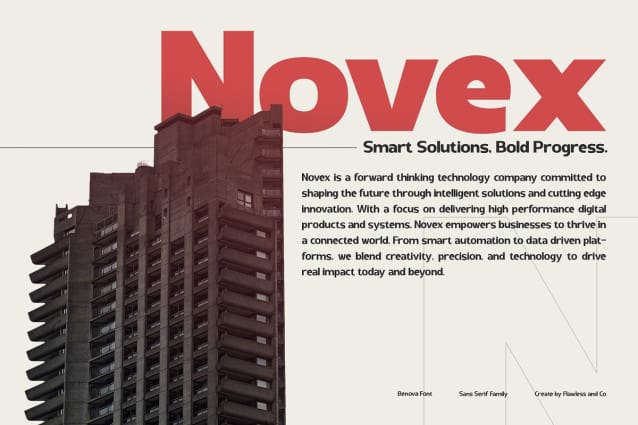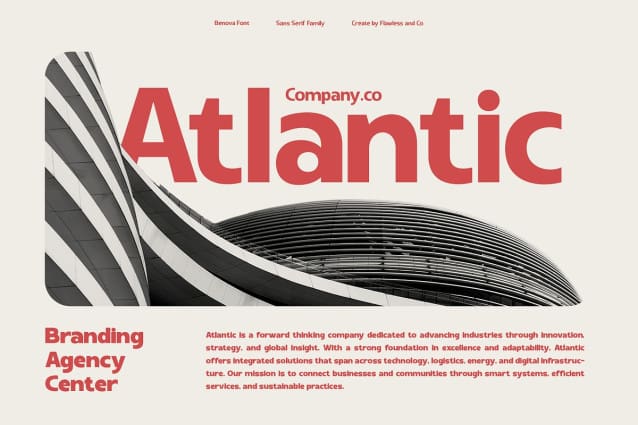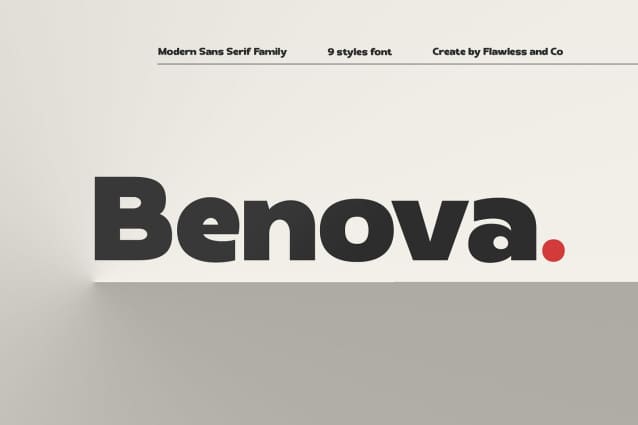
Benova Font
Benova Font is a modern sans serif font family designed with versatility, balance, and bold clarity in mind. Featuring 9 carefully crafted styles ranging from thin to black, Benova offers clean lines, geometric shapes, and excellent legibility that make it ideal for both print and digital projects. Its contemporary design gives a strong and confident voice, perfect for professional branding, corporate identity, editorial layouts, and bold headlines. Whether you’re working on logos, marketing campaigns, or sleek product packaging, Benova provides the flexibility and style needed to create impactful designs.